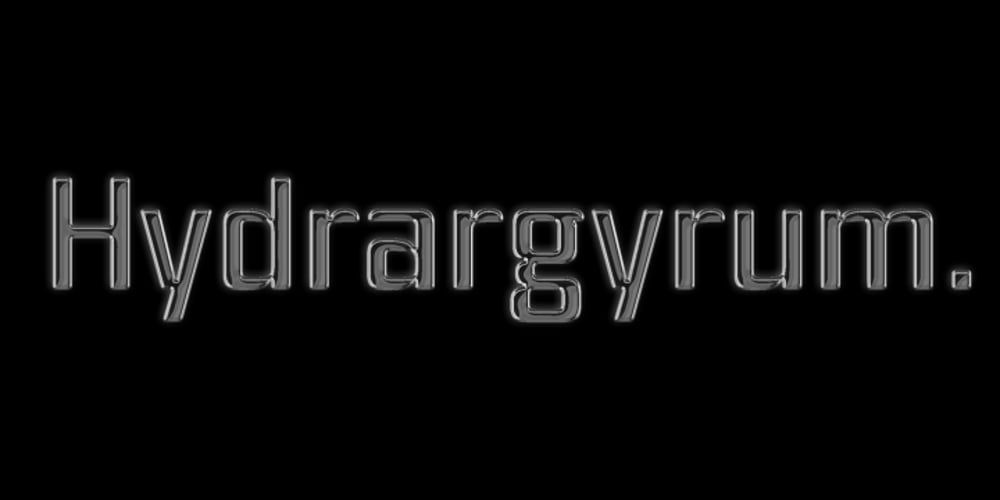
Hydrargyrum Font Family was designed by Tucker Meyers and published by Type Minds. Hydrargyrum contains 12 styles and family package options. Hydrargyrum is the Latin form of a Greek word meaning “liquid silver” – mercury. The Hydrargyrum typefaces are designed with characteristics both of a metal and a liquid. The basic shapes of the letters are generally rigid and rectangular (particularly in style C), but the forms are enhanced by fluid curves and gently rounded corners. Hydrargyrum is not recommended for use at small sizes or in lengthy passages of text. It performs best in display-sized settings. Hydrargyrum consists of three styles, each in medium and semibold weights with matching obliques. The A style features solid, standard letterforms including the two-story a and g. Style B substitutes the a, g, M, and N (and related glyphs including numero and trademark symbols) for alternate shapes. The third subfamily takes the rectangular theme to an extreme, eliminating as many slanted strokes as possible from the letterforms. This makes some C-style letters ambiguous with one another, such as the U’s and V’s. As such, the C style is best used carefully even at larger sizes. The Hydrargyrum fonts are style linked within each style subfamily with, for example, Hydrargyrum A Medium as the regular style, Hydrargyrum A Medium Oblique as the italic, Hydrargyrum A SemiBold as the bold option, etc.